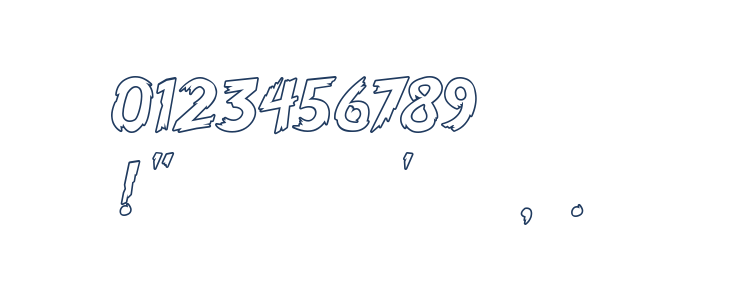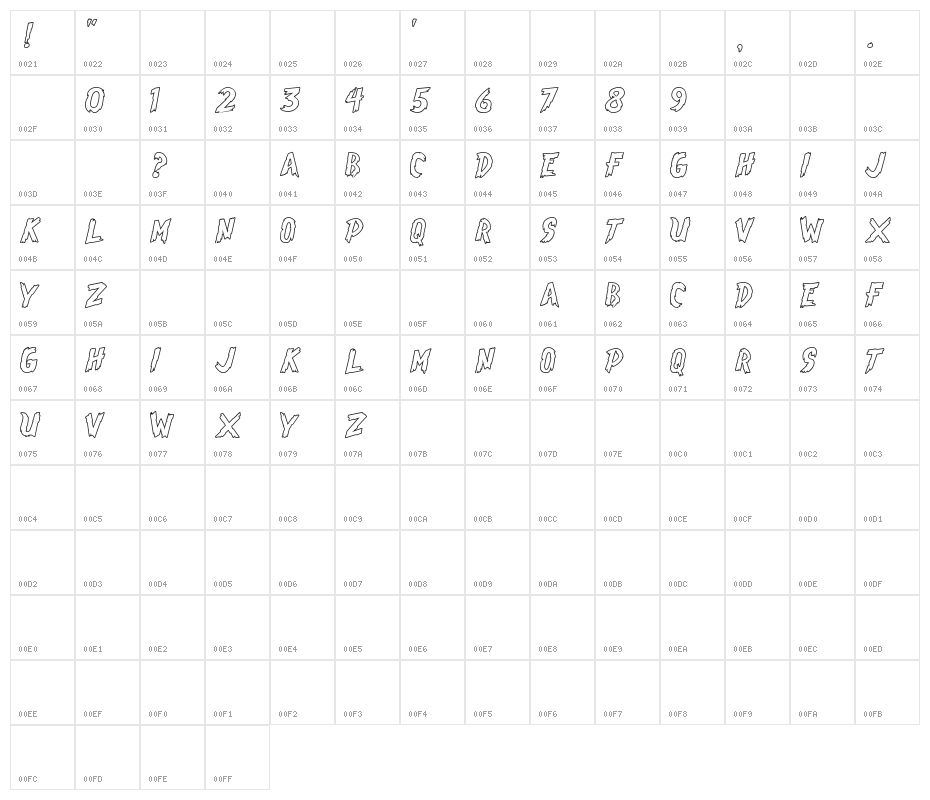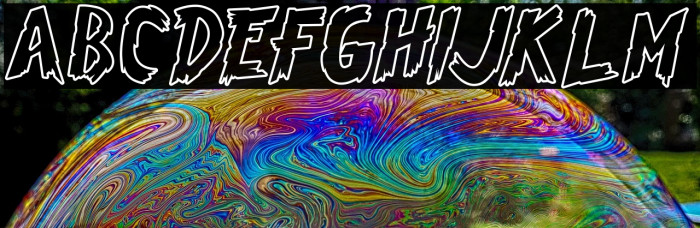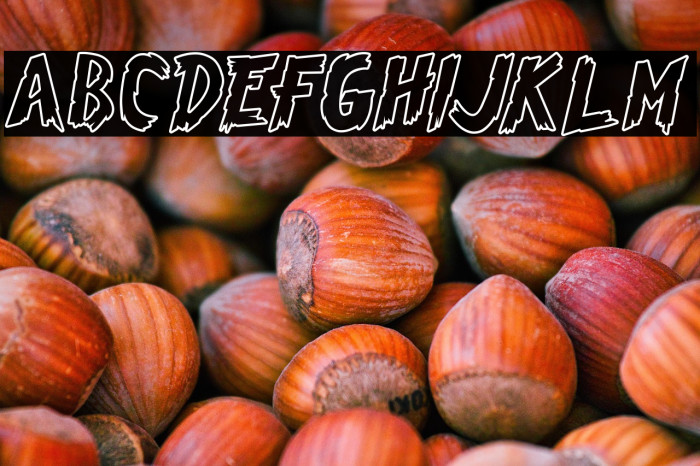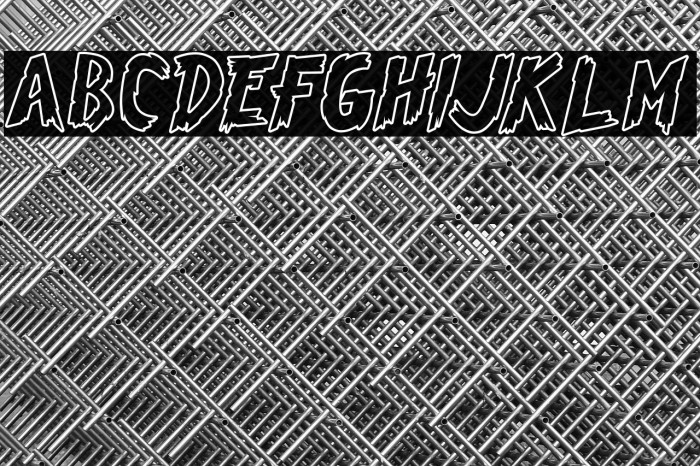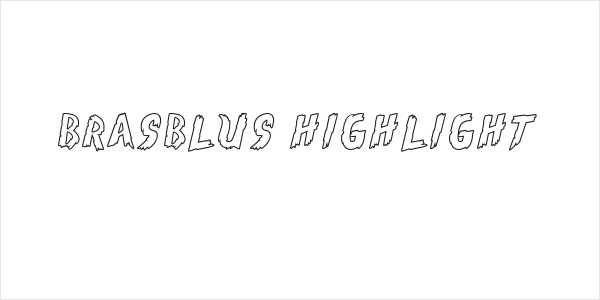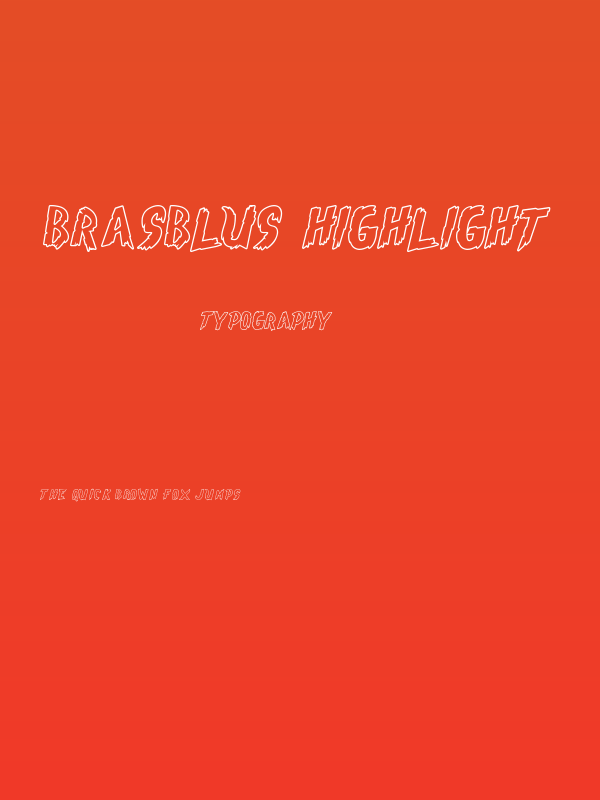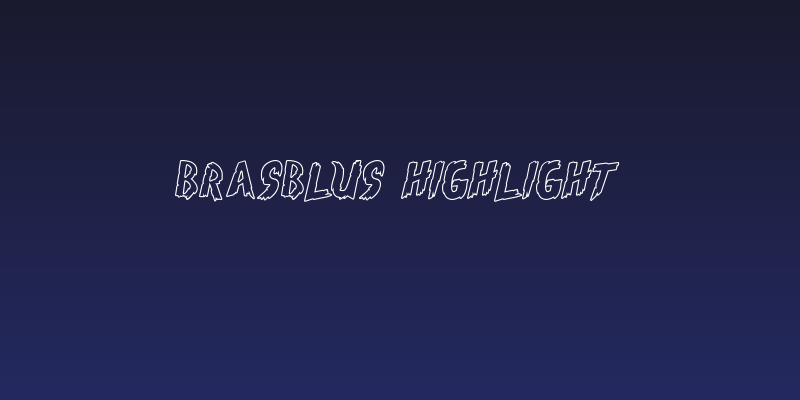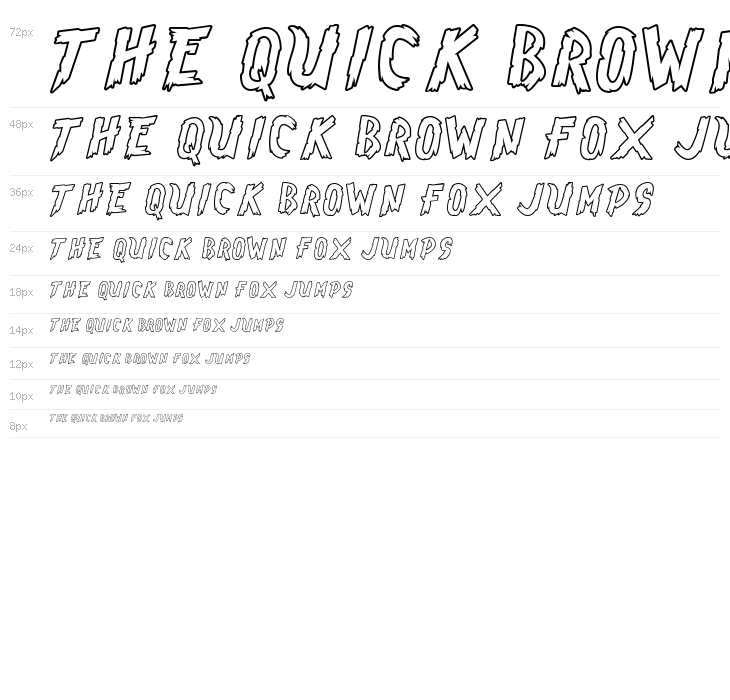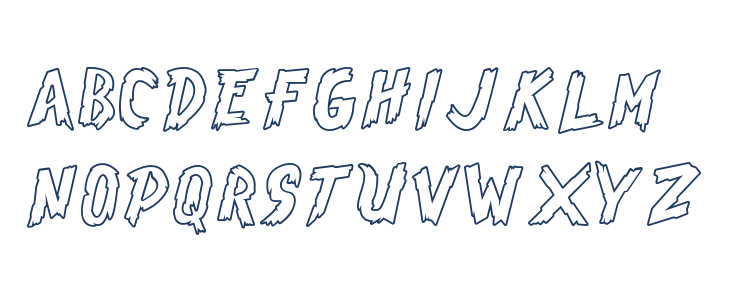
Brasblus Highlight Font
Brasblus Highlight Description
This font features a bold and dynamic style with jagged, brush-like strokes that give it an energetic and edgy appearance. The characters are slightly slanted, adding a sense of movement and urgency. The uppercase and lowercase letters maintain a consistent style, with sharp angles and irregular edges that create a sense of spontaneity. The numbers and special characters follow the same design principles, ensuring a cohesive look across all elements. This font's unique style makes it stand out, ideal for projects that require a bold statement.
| Overall Style | Modern, Energetic, Edgy |
| Proposed Projects | Perfect for posters, album covers, video game titles, and any project needing a bold, energetic look. |